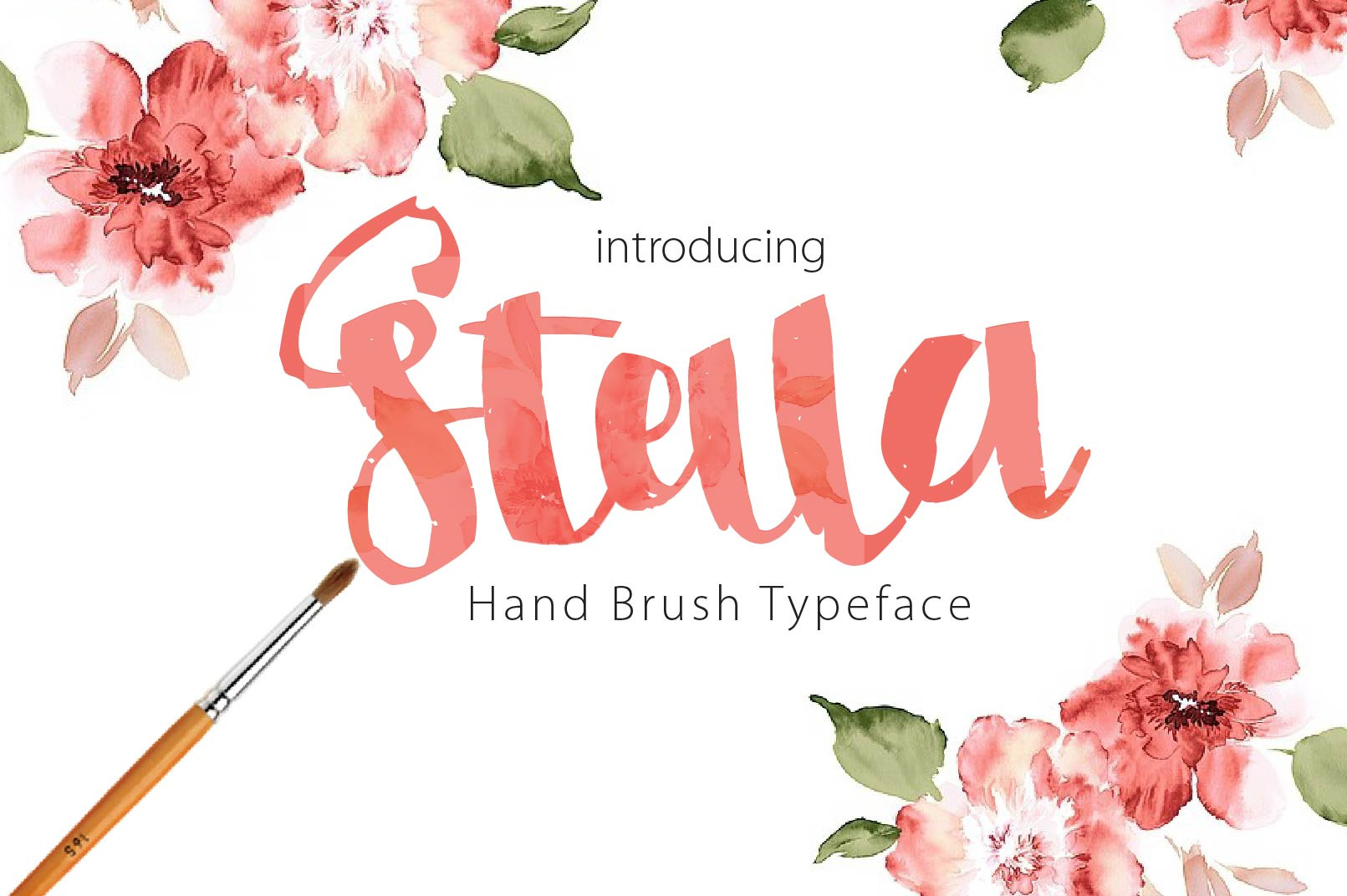
Stella script typeface
Stella script typeface is a beautiful hand typeface that comes with a set of Beautiful extras. Highly Suitable for a variety of media design , logo, fashion, poster and all design product